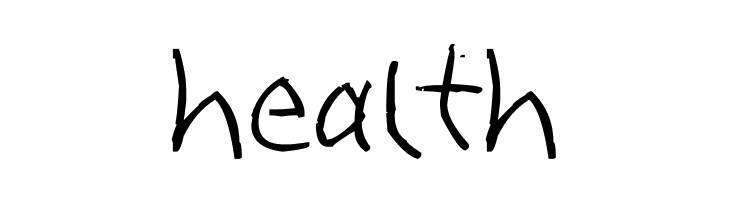
Roadhouse Font
Anglo Text Font
A decorative blackletter font with intricate flourishes and a gothic style.
Funkhouse Font
A bold, playful font with exaggerated curves and whimsical shapes.
Birds of Paradise Font
An elegant, cursive font with flowing, connected letters and refined loops.
Zebra Font
A decorative font with zebra stripe patterns for a bold visual impact.
BOO Font
A decorative Halloween-themed font with unique spooky illustrations for each character.
Acid House Font
A bold, distressed font with a grunge aesthetic and chaotic texture.
Copyright House Industries Not Licensed for Desktop Use Font
A dynamic, cursive handwritten font with fluid, connected letters.
Playhouse Font
A playful, bold font with irregular, jagged edges and a hand-cut appearance.
House of Horror Font
A distressed, grungy font with a bold, horror-inspired aesthetic.
Countryhouse Font
A playful and whimsical font with unique, quirky letterforms and dynamic style.
House Of Fun Font
A playful and bold font with exaggerated curves and dynamic contrast.
Animal House Font
A bold, geometric font with angular shapes and a playful, dynamic style.
Jars Font
Hand-drawn display font with illustrated jars and containers as glyphs.
Ashyhouse Font
A bold, hand-drawn font with an expressive, graffiti-like style.
BurbankBigCondensed-Bold Font
A bold, condensed font with strong, uniform strokes for impactful headlines.
Powerhouse Font
A bold, slanted font with a modern, dynamic style.
Printhouse Font
A playful, informal handwritten font with irregular strokes and a casual appearance.
Gothic Flourish Font
An ornate, gothic-style font with elaborate flourishes and embellishments.